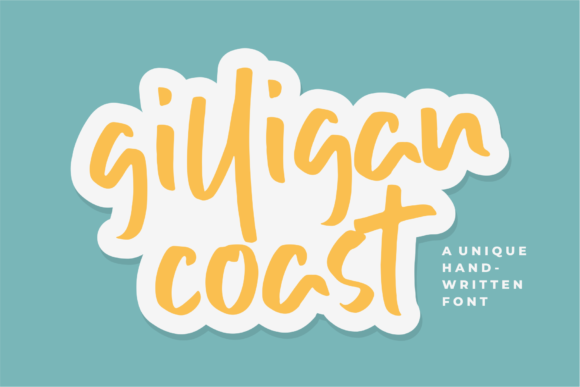
Welcome to the realm of Gilligan Coast, a font so remarkably unique that it breathes life into your creative endeavors. Step into a world where handwritten elegance intertwines with a touch of coastal charm. Prepare to be spellbound by its flowing strokes and friendly demeanor, beckoning you to craft designs that radiate warmth and invitation.
Gilligan Coast, a script font hailing from the creative haven of Azetype, is a testament to the boundless possibilities of imagination. With its free-spirited nature, this font dances across your designs like a gentle ocean breeze, carrying with it an air of tranquility that soothes the soul. Witness the harmonious fusion of casual elegance and professional sophistication as Gilligan Coast graces your creations.
Dive into the depths of Gilligan Coast's versatility and discover a font that effortlessly adapts to your creative vision. Let its curves embrace your words, guiding them along a path of artistry and inspiration. From playful invitations to heartfelt greeting cards, from captivating logos to enchanting social media posts, Gilligan Coast becomes an integral part of your design tapestry, adding a touch of magic to every project you undertake.
Unleash the storyteller within you as Gilligan Coast transforms your words into compelling narratives. Its enchanting strokes invite readers to embark on a journey, captivates their attention, and leaves them craving more. Watch as your designs blossom into engaging tales that resonate with your audience, leaving a lasting impression that lingers long after the page is turned.
With Gilligan Coast as your trusted companion, transcend the boundaries of ordinary design and ascend to new heights of creativity. Embrace the freedom to express yourself authentically, knowing that this font will effortlessly elevate your work. Dive into a sea of endless possibilities and let Gilligan Coast guide you towards design excellence.